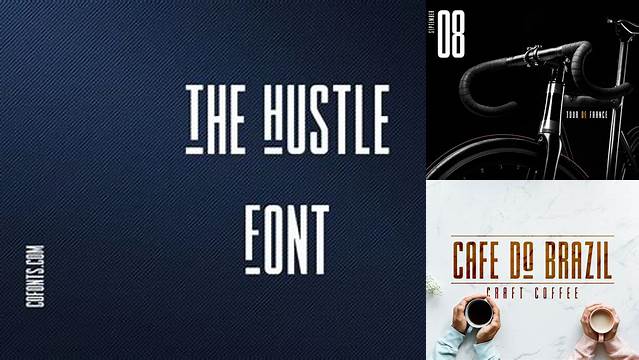
Hustle Font Family: Free Download And Usage Guide
Are you guys on the lookout for a font that screams modern, bold, and versatile? Well, you've hit the jackpot! Today, we’re diving deep into the Hustle font family, a real gem in the world of typography. We’ll explore everything from what makes this font so special to where you can snag it for free (yes, you heard that right!). So, buckle up, typography enthusiasts, and let's get hustling!
What Makes the Hustle Font Family a Must-Have?
When it comes to fonts, the Hustle font family truly stands out from the crowd. Its unique blend of clean lines and contemporary design makes it a go-to choice for designers and creatives across various fields. But what exactly makes this font family so special? Let's break it down, guys.
First off, versatility is the name of the game. Whether you're crafting a sleek logo, designing an eye-catching poster, or revamping your website's typography, the Hustle font family has got your back. It includes a variety of weights and styles, from light and airy to bold and impactful, giving you the flexibility to adapt to any project’s needs. Seriously, this font is like the Swiss Army knife of typography!
Secondly, the modern aesthetic of the Hustle font family is a major draw. In a world where design trends are constantly evolving, this font manages to stay ahead of the curve. Its clean, geometric shapes and sharp edges give it a contemporary feel that's perfect for businesses and brands aiming to project a forward-thinking image. Plus, it's super readable, which is always a win in our book.
Another key advantage is its legibility. What's the point of a beautiful font if nobody can read it, right? The Hustle font family strikes the perfect balance between style and readability, ensuring your message gets across loud and clear. Whether it's used in headlines or body text, this font maintains its clarity, making it a reliable choice for all types of design projects. You don't want your message getting lost in translation, and with Hustle, it won't!
Moreover, the Hustle font family exudes a sense of confidence and sophistication. Its strong, assertive letterforms make a statement without being overly aggressive. This makes it an excellent choice for brands that want to convey professionalism and reliability. Think of it as the typography equivalent of a power suit – it just commands attention and respect.
Finally, let's talk about impact. In a visually saturated world, it's crucial to make your designs stand out. The Hustle font family helps you do just that. Its distinctive character and strong visual presence ensure that your message won't get lost in the noise. It’s the kind of font that people notice, remember, and appreciate.
In a nutshell, the Hustle font family is a versatile, modern, legible, and impactful typeface that's perfect for a wide range of design applications. Its ability to adapt to different styles and contexts makes it a valuable addition to any designer’s toolkit. So, if you're looking for a font that can elevate your projects and help you make a lasting impression, Hustle might just be your new best friend.
Firstly, keep an eye out for promotional offers. Sometimes, font designers and foundries offer their fonts for free as part of a limited-time promotion. These promotions can be a fantastic way to snag premium fonts like the Hustle font family without paying a hefty price. Make sure to follow your favorite font foundries and design resources on social media and subscribe to their newsletters. That way, you’ll be the first to know about any sweet deals or freebies they're offering. You don't want to miss out on these golden opportunities!
Secondly, explore reputable free font websites. There are several websites out there that curate high-quality free fonts, and some of them might just have the Hustle font family available. Websites like Font Squirrel, Google Fonts (though Hustle isn't currently on Google Fonts, it’s always worth checking), and DaFont are good places to start. Just make sure to read the licensing information carefully before using the font in your projects. You want to ensure you're complying with the terms of use and avoiding any potential copyright issues. Trust us, nobody wants a legal headache!
Another option is to check out design resource platforms. Websites like Behance and Dribbble often feature designers who are generous enough to share their fonts for free. You might stumble upon the Hustle font family or a similar font in one of these designer’s freebie sections. These platforms are not only great for finding free fonts but also for getting inspiration and connecting with other creatives. It’s like hitting two birds with one stone!